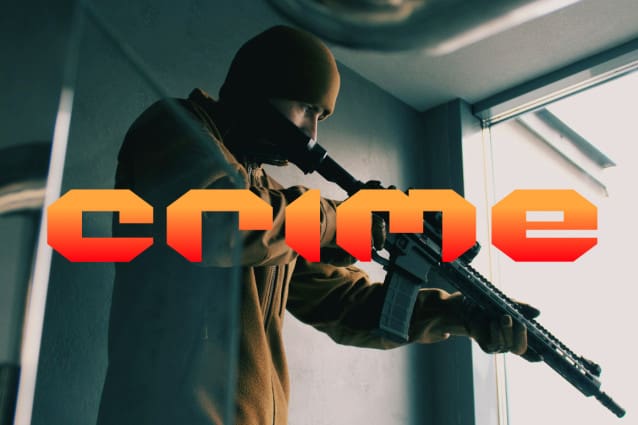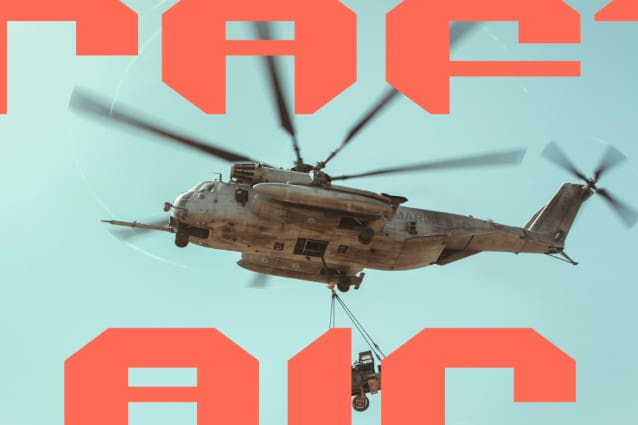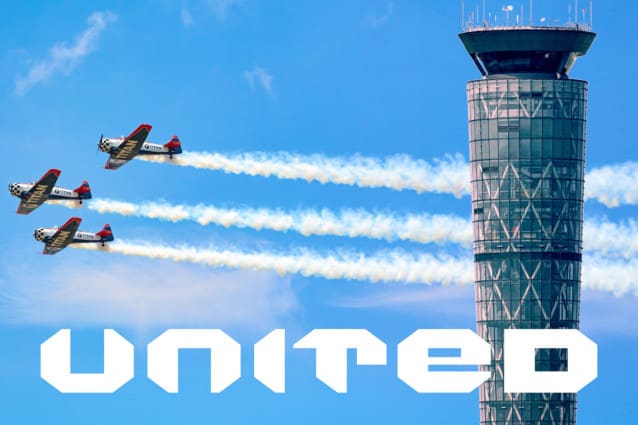
FF Rain Block Font
FF Rain Block Font a strong, confident and powerful typeface designed to suit sports logos, club branding, apparel applications, labels and more.